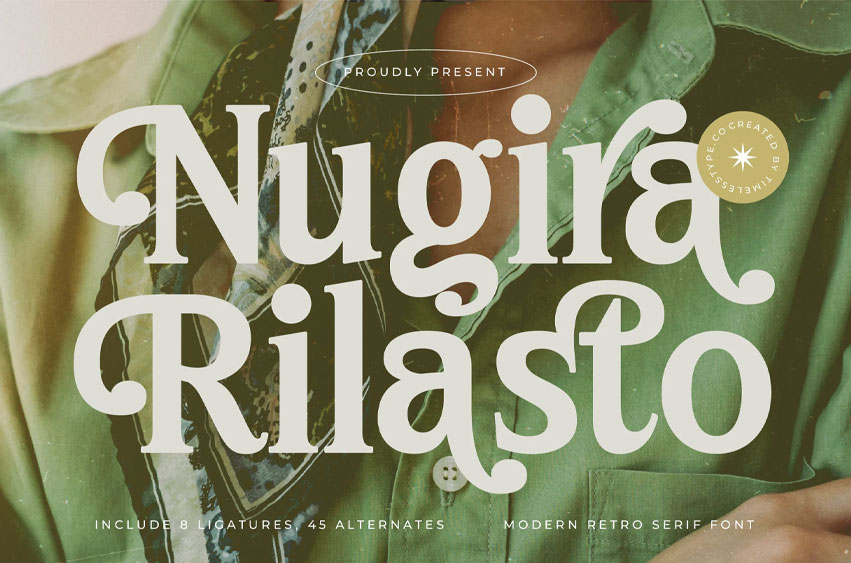
Nugira Rilasto Font is a modern retro serif display font featuring soft curves, bold contrast, and charming vintage-inspired details. Its sculpted letterforms blend nostalgic elegance with contemporary style, making it perfect for boutique branding, editorial design, fashion promotions, packaging, and expressive logo work. The font brings warmth, personality, and a sophisticated retro character to every visual composition.
Equipped with 8 ligatures and 45 alternates, Nugira Rilasto gives designers creative freedom to build unique headline treatments, stylish typographic layouts, and distinctive decorative titles. Its smooth curves, graceful swashes, and refined shapes make it ideal for projects seeking a blend of modern aesthetics and timeless retro flair.